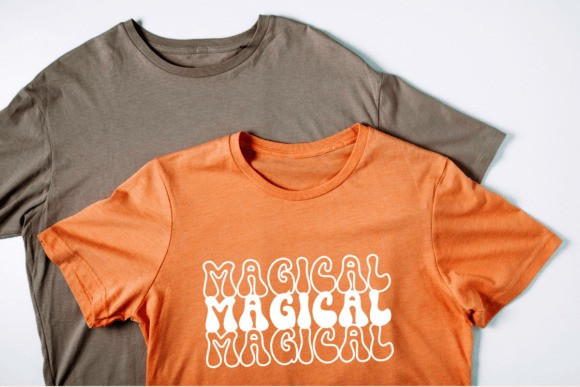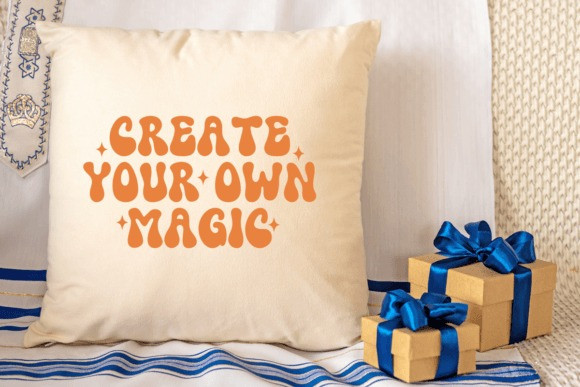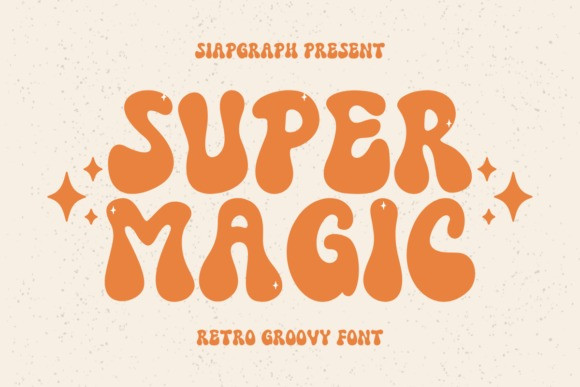
Super Magic Display Font
Super Magic Display Font is a bold and groovy retro typeface that radiates playful energy and nostalgic vibes. With its bubbly, flowing letters, it’s perfect for 70s-inspired designs, posters, logos, t-shirt graphics, and social media. Bring a touch of retro magic and funky charm to your next creative project!